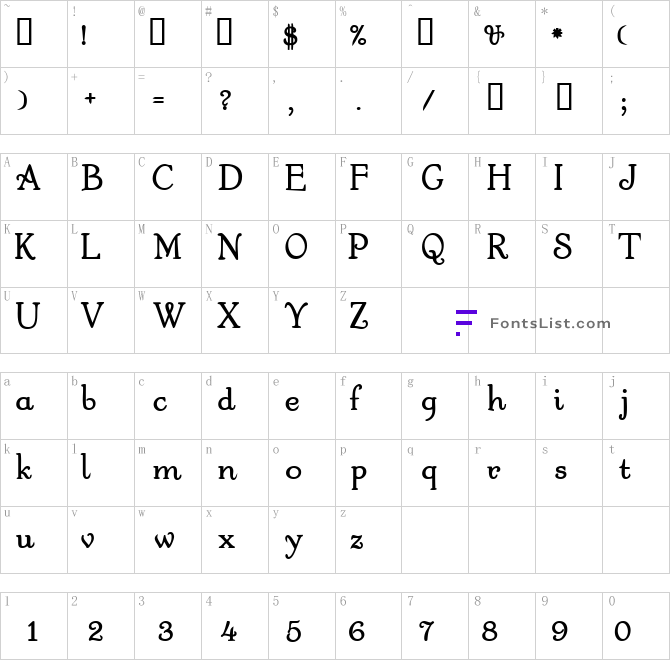
- Font Name:BauderieScriptSSK
BauderieScriptSSK-Bold.ttf is a very beautiful artistic font, BauderieScriptSSK-Bold.ttf is widely used in the design and printing of various books and pictures,BauderieScriptSSK-Bold.ttf has a strong visual impact,BauderieScriptSSK-Bold.ttf is a commonly used font in newspapers, magazines and books, and is used in posters, e-commerce Poster design, store design, logo design, font design and other fields.BauderieScriptSSK-Bold.